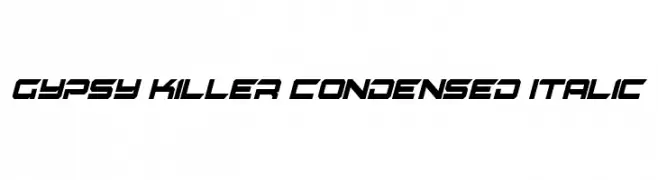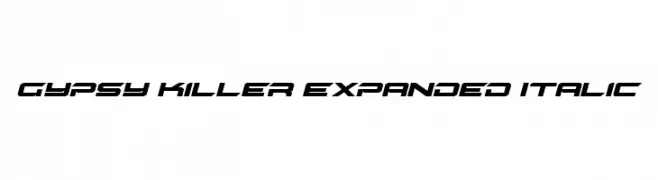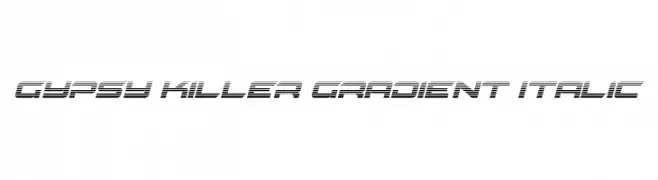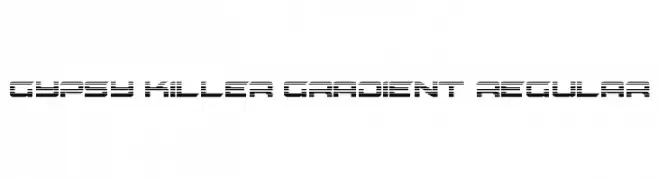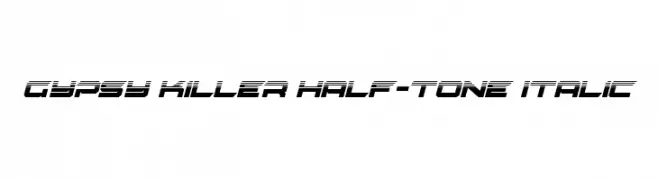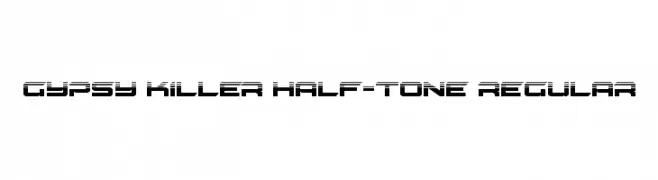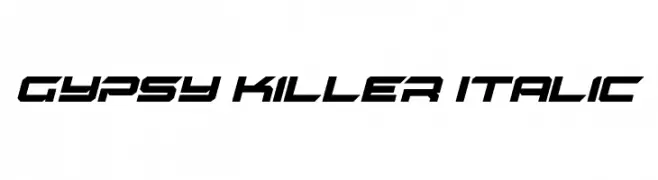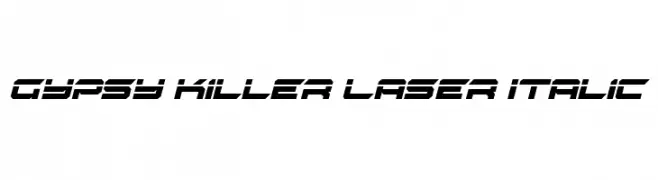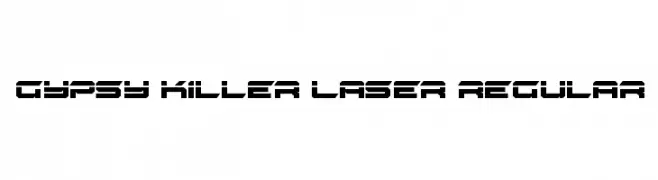
A bold, condensed, and italicized font with a futuristic and dynamic design.
A bold, futuristic font with geometric shapes and sharp angles.
A bold, expanded italic font with a futuristic and dynamic style.
A modern, italicized font with a striped gradient effect, exuding energy and motion.
A bold, futuristic font with a gradient effect and tight character spacing.
A bold, italic, futuristic font with angular shapes and horizontal line accents.
A bold, futuristic font with a unique half-tone effect and geometric design.
A bold, italicized font with a futuristic and dynamic style.
A futuristic, angular, and italicized font with a bold, geometric design.
A bold, geometric font with a futuristic and modern design.